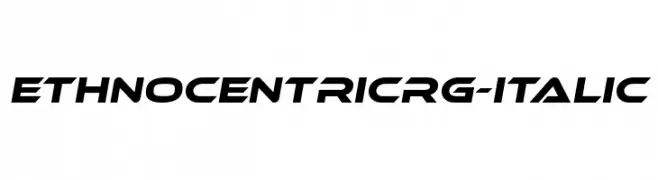
Ethnocentric Font
A bold, futuristic font with sharp, angular lines and a geometric structure.
A bold, futuristic font with sharp, angular edges and a geometric design.
A bold, italic font with a futuristic and dynamic style.
A bold, futuristic font with sharp angles and a geometric design.